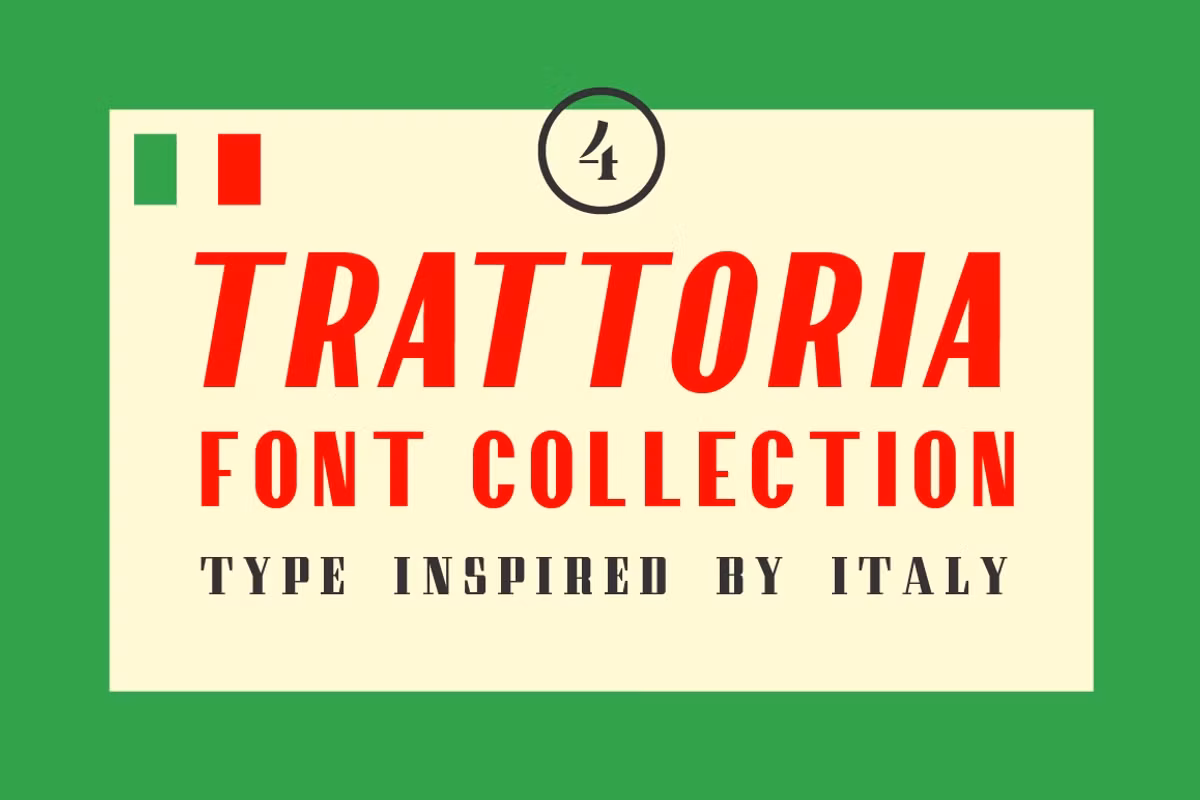
Trattoria Font Collection Free Download
Trattoria Font Collection Free Download brings the charm of classic Italian bistros right into your design toolkit. This beautifully curated font set captures the warmth, tradition, and hand-crafted feel of vintage signage and restaurant menus. Perfect for café branding, wine labels, packaging, and lifestyle graphics, Trattoria offers a flavorful blend of rustic elegance and modern usability.
With multiple styles included in the collection—from bold display fonts to elegant scripts—you’ll have the flexibility to create cohesive designs that feel authentic and inviting. Whether you're designing a logo for a gourmet food brand or crafting social media visuals for a culinary blog, this font collection delivers a rich, expressive personality.